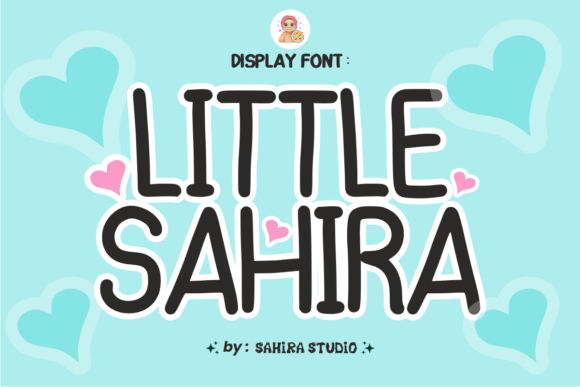
Little Sahira: An Elegant Handcrafted Font
In the crowded digital landscape, typography often serves as the silent ambassador of a brand or message. It is the first element that establishes tone before a single word is read. Little Sahira enters this space not merely as another typeface, but as a deliberate choice for those seeking to infuse their projects with a sense of refined elegance and human touch. As an elegant, handcrafted font, it bridges the gap between professional polish and personal warmth, making it a versatile asset for creators who understand that design details matter.
Whether you are designing a logo for a boutique startup or crafting a heartfelt invitation for a wedding, the right font can transform a standard layout into a memorable experience. Little Sahira offers a distinct aesthetic that resonates with audiences looking for authenticity. Its handcrafted nature ensures that every curve and stroke feels intentional, avoiding the sterile uniformity often found in generic system fonts. This quality allows designers to communicate sophistication without sacrificing approachability.
The Artistry of Handcrafted Typography
What sets Little Sahira apart is its foundation in handcrafted design principles. Unlike algorithmic fonts generated by software to fill a geometric grid, handcrafted typefaces carry the nuances of human movement. When you apply Little Sahira to your work, you are introducing a layer of organic texture that suggests care and attention to detail. This is particularly valuable in an era where consumers are increasingly skeptical of mass-produced content.
For professionals such as graphic designers, marketers, and small business owners, this distinction is crucial. A logo designed with Little Sahira does not just display a name; it tells a story about the brand's values. The subtle variations in line weight and the graceful flow of the letters convey a narrative of craftsmanship. This makes it an excellent choice for industries like artisanal food and beverage, high-end fashion, wellness, and creative services, where the perception of quality is paramount.
Enhancing Brand Identity Through Design
Building a strong brand identity requires consistency and visual appeal. Little Sahira provides a robust tool for achieving this balance. When used in logos, the font's elegance helps establish immediate recognition while maintaining a timeless quality. Many brands struggle to find a typeface that works well at both large scales, such as on signage, and small scales, like on social media avatars. Little Sahira's clear structure ensures legibility across these different mediums, supporting a cohesive brand presence.
Consider a freelance consultant or a boutique agency looking to differentiate itself from competitors. By incorporating Little Sahira into their stationery, website headers, and presentation decks, they signal a commitment to excellence. The font acts as a visual anchor, reinforcing the message that the business prioritizes quality and thoughtful execution. This subtle psychological cue can influence how potential clients perceive the value of the services offered.
Practical Applications Across Creative Projects
The versatility of Little Sahira extends far beyond corporate branding. Its adaptable nature makes it a fantastic addition to any font library, capable of enhancing a wide array of creative endeavors. From greeting cards to mugs and t-shirts, the font maintains its character regardless of the medium. This adaptability is a significant time-saver for creators who need a reliable typeface that performs well in diverse contexts.
Personalized Greetings and Invitations
Invitations and greeting cards are deeply personal items where the emotional impact of the design is critical. Little Sahira excels in these scenarios due to its elegant script-like qualities. Whether planning a wedding, a baby shower, or a formal gala, using this font can elevate the perceived importance of the event. The handcrafted style mimics the look of calligraphy, offering a level of sophistication that standard sans-serif fonts cannot achieve.
For hobbyists and DIY enthusiasts, this means creating professional-grade invitations without needing to hire a calligrapher. The font simplifies the design process, allowing users to focus on the wording and layout while trusting that the typography will deliver the desired effect. It supports creativity by providing a beautiful canvas upon which other design elements can be built.
Merging Style with Merchandise
In the realm of merchandise, such as mugs, t-shirts, and tote bags, typography often carries the primary message. Little Sahira brings a unique flair to these products, transforming simple text into wearable or usable art. For small business owners selling custom goods, the ability to offer designs that feel exclusive and hand-made is a competitive advantage. The font's elegance ensures that the product looks premium, justifying higher price points and attracting customers who appreciate aesthetic detail.
Ultimately, the value of Little Sahira lies in its capacity to enhance any creation with a sense of refined beauty. It empowers creators to produce work that feels both professional and personal, meeting the demands of modern audiences who crave authenticity. By choosing this font, you are making a statement about the quality and care embedded in your work, setting a standard that resonates with viewers and clients alike.